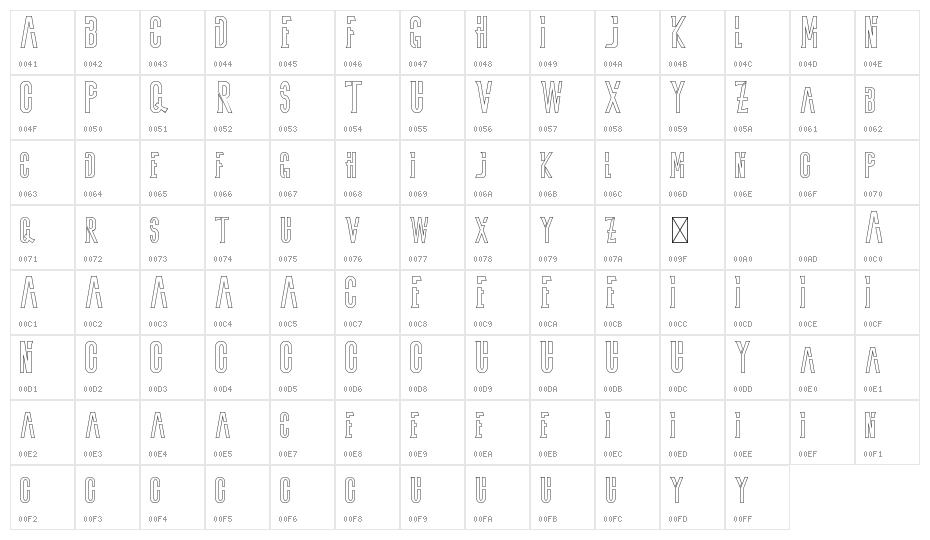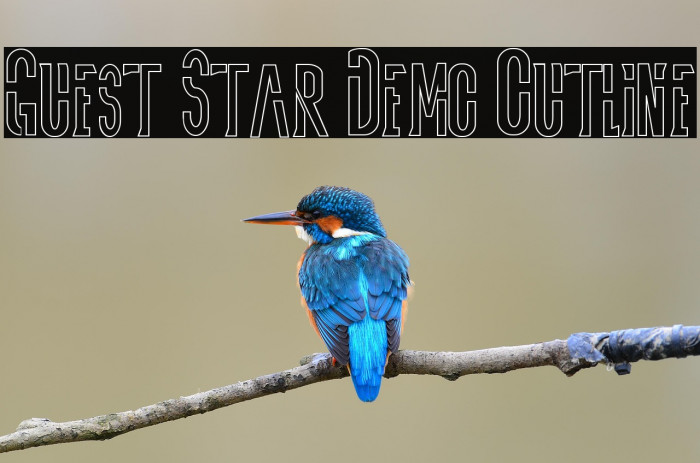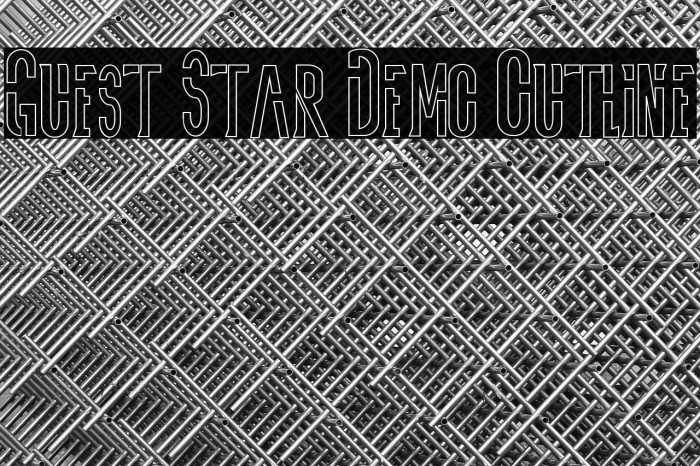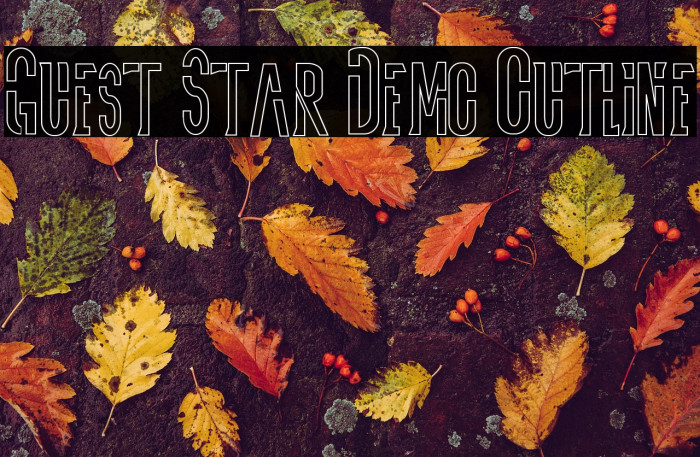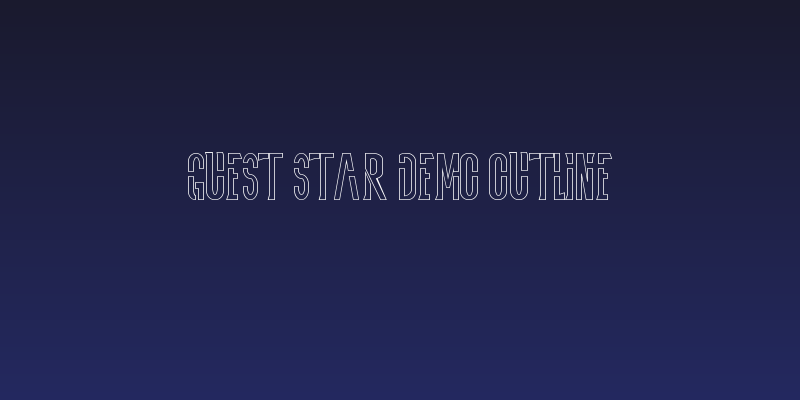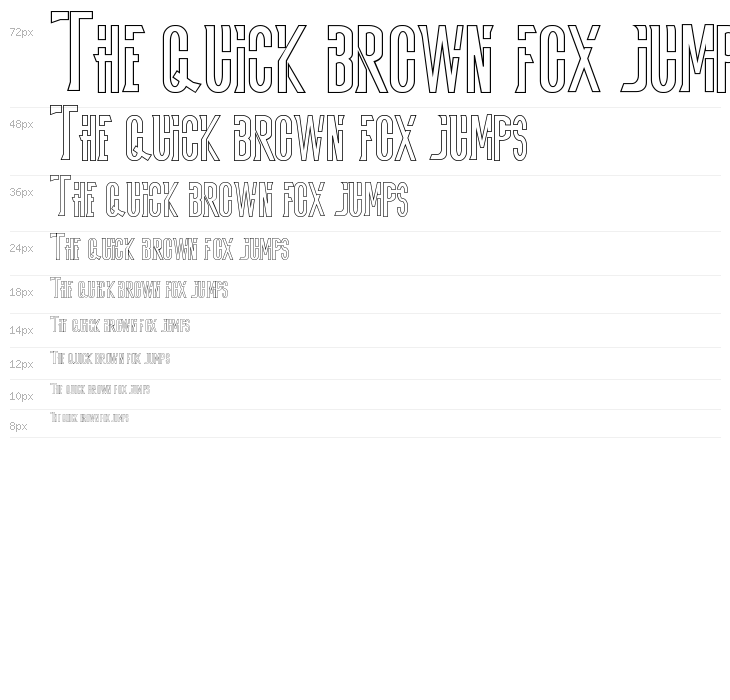
Guest Star Demo Outline Font
Guest Star Demo Outline Description
This font features a bold, geometric design with an outline style that gives it a modern and edgy appearance. The characters are constructed with sharp angles and straight lines, creating a sense of movement and dynamism. The uppercase letters are particularly striking, with a tall and narrow form that emphasizes verticality. The outline effect adds a layer of depth, making the font suitable for eye-catching designs. The font's unique style is both futuristic and retro, making it versatile for various creative projects.
Proposed ProjectsIdeal for posters, album covers, branding, and any project needing a bold statement.